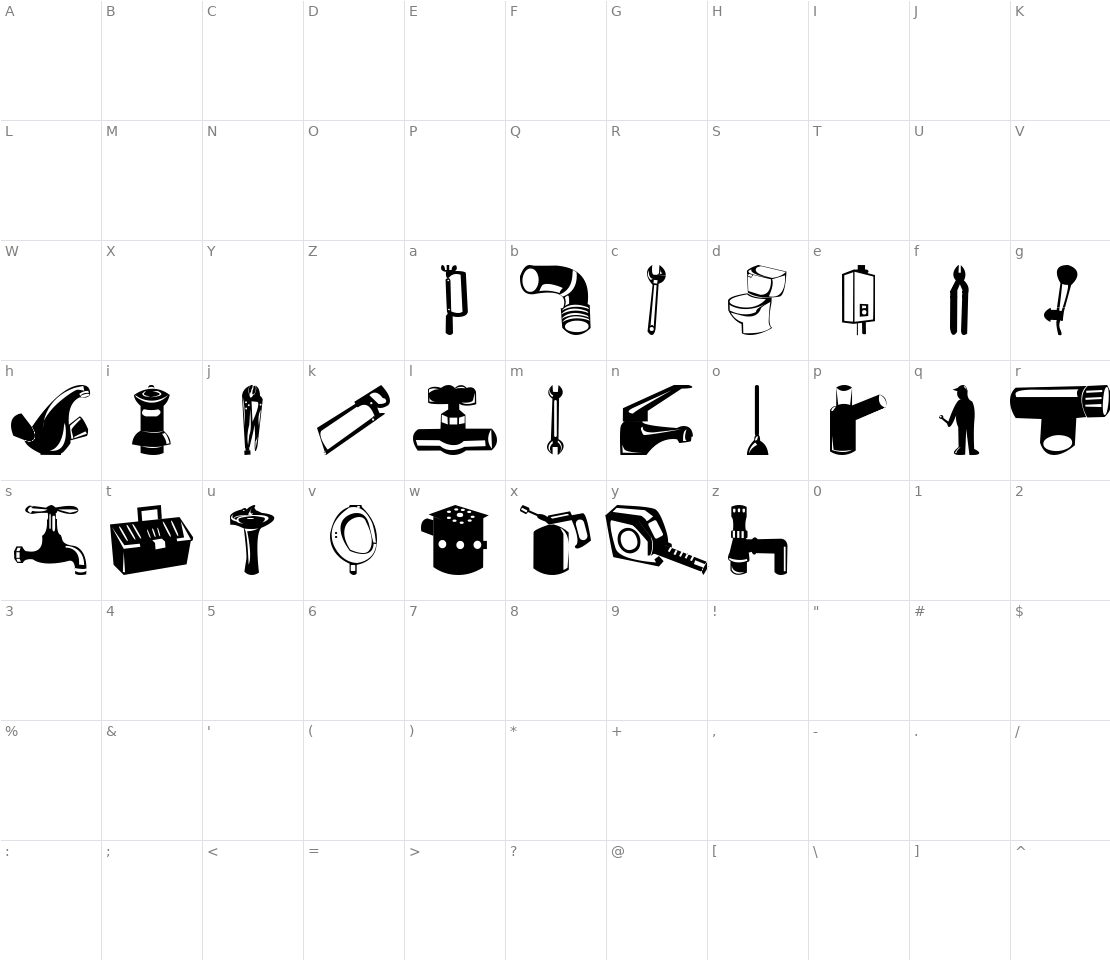
Gasfiterbarrera
by David Barrera
Gasfiterbarrera is a dingbats font by David Barrera built entirely from plumbing and hardware imagery: pipes, fittings, tools, valves, and other industrial symbols. It's a niche but genuinely useful resource for technical diagrams, trade branding, or any design work related to plumbing and construction where you need quick, consistent iconography without drawing everything from scratch.